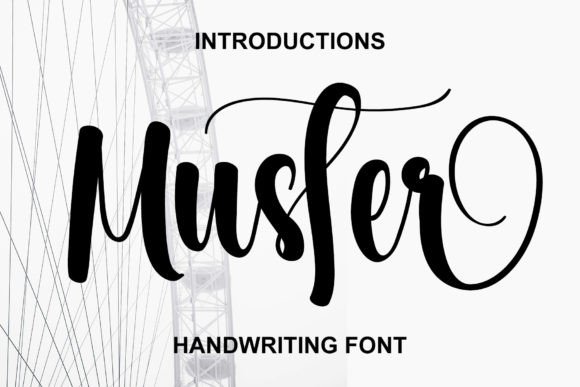
Muster Font: Elevate Your Design with Timeless Elegance
In the world of typography, few fonts manage to strike a balance between classic sophistication and modern flair. Muster Font is one such exceptional typeface that brings together the best of both worlds, offering a stylish handwritten look with a contemporary atmosphere and impeccable form. Inspired by timeless classic calligraphy, Muster Font is designed to add a touch of elegance and refinement to your projects.
What Makes Muster Font Stand Out?
- Contemporary yet Classic: Muster Font boasts a unique blend of modern style and classic calligraphic elements, making it versatile for various design applications.
- Balanced and Varied: The font features balanced strokes and a varied character set, ensuring that your text remains legible and visually appealing.
- Impeccable Form: With meticulous attention to detail, Muster Font showcases impeccable form, reflecting a high level of craftsmanship.
- Handwritten with a Personal Touch: The font’s handwritten nature adds a personal and intimate feel to your designs, setting them apart from more traditional typefaces.
Ideal Applications for Muster Font
Muster Font’s versatility makes it suitable for a wide range of design projects. Here are some ideal applications:
- Branding and Logos: Use Muster Font to create elegant and memorable brand identities that stand out.
- Wedding and Event Invitations: The font’s classic and sophisticated look makes it perfect for wedding invitations, event posters, and other formal announcements.
- Packaging Design: Enhance your product packaging with a touch of elegance and refinement, making your products more appealing to customers.
- Digital Media: Muster Font is also great for digital media, including social media graphics, blog headers, and website content.
Typography Details: Getting the Most Out of Muster Font
To maximize the potential of Muster Font, it’s essential to understand its typographic details:
- Character Set: The font includes a comprehensive character set, featuring uppercase and lowercase letters, numbers, and punctuation marks.
- Kerning and Spacing: Muster Font is designed with optimal kerning and spacing, ensuring that your text is easy to read and visually balanced.
- Weights and Styles: The font comes in various weights and styles, allowing you to experiment with different looks and moods.
Inspiration and Examples: Seeing Muster Font in Action
To gain a deeper understanding of Muster Font’s capabilities, let’s take a look at some inspiring examples:
Wedding invitation featuring Muster Font, paired with a simple yet elegant design.
Branding and packaging design for a luxury product, showcasing Muster Font’s versatility.
Digital media design, featuring Muster Font in a blog header and social media graphics.
Conclusion: Elevate Your Designs with Muster Font
Muster Font is a stylish and versatile typeface that brings a touch of timeless elegance to your designs. With its impeccable form, balanced strokes, and varied character set, this font is perfect for a wide range of applications. By understanding its features, typographic details, and best practices for use, you can unlock the full potential of Muster Font and take your designs to the next level.